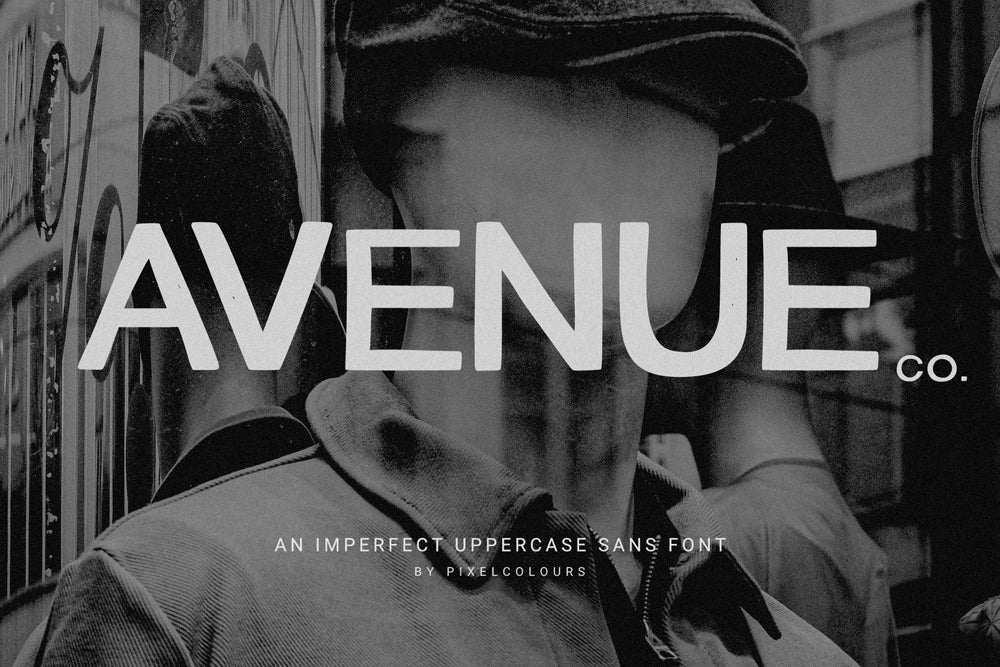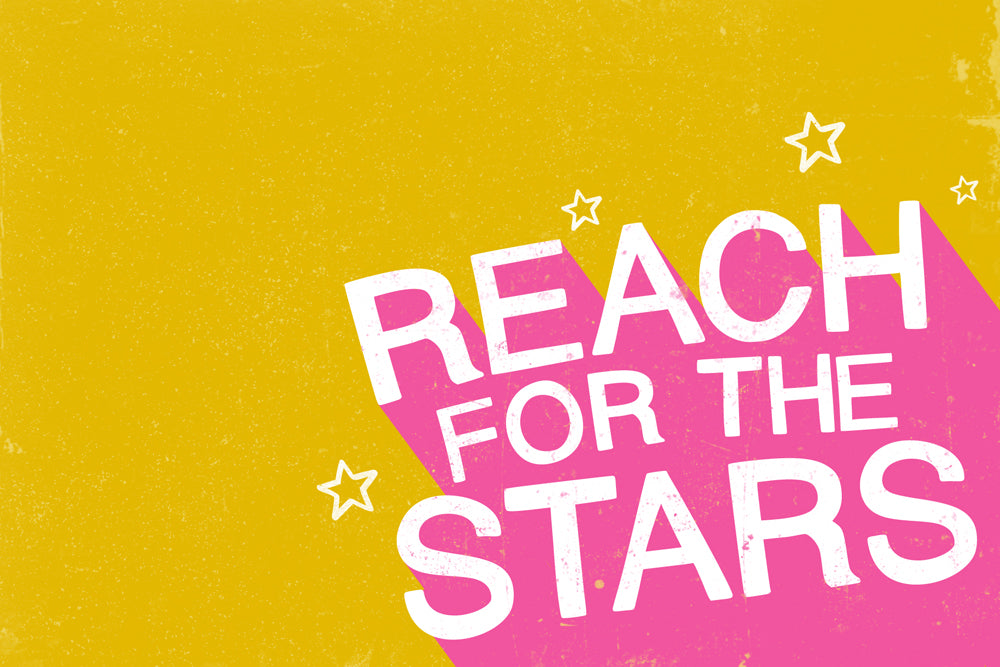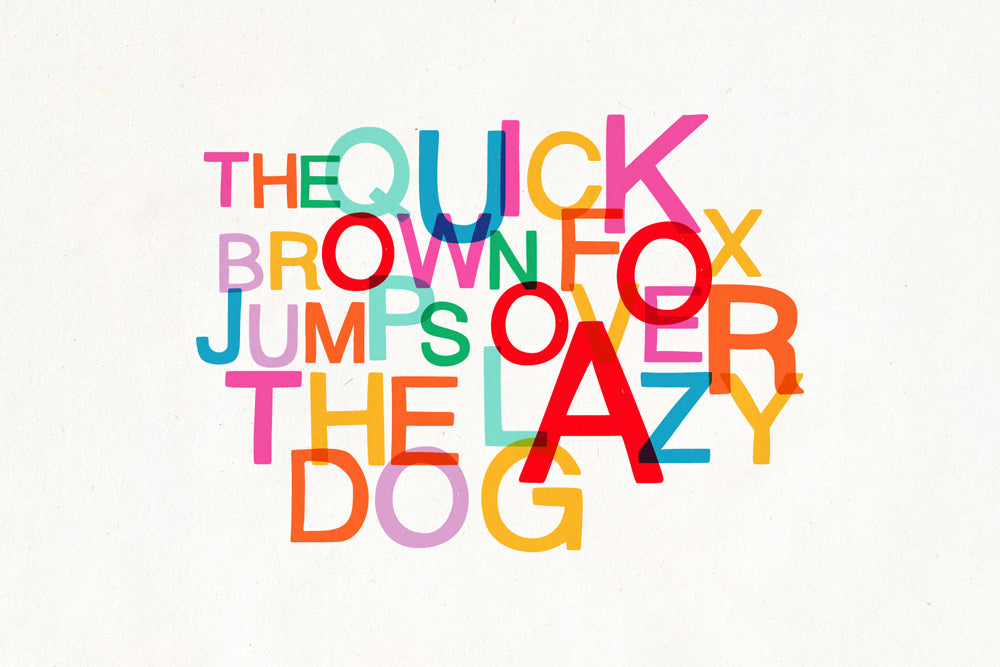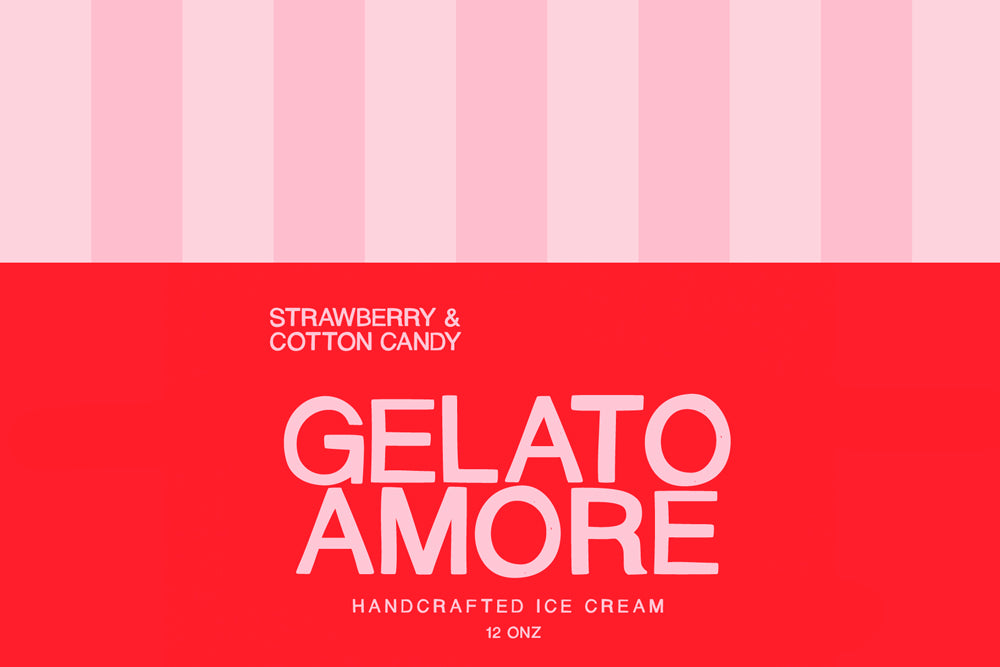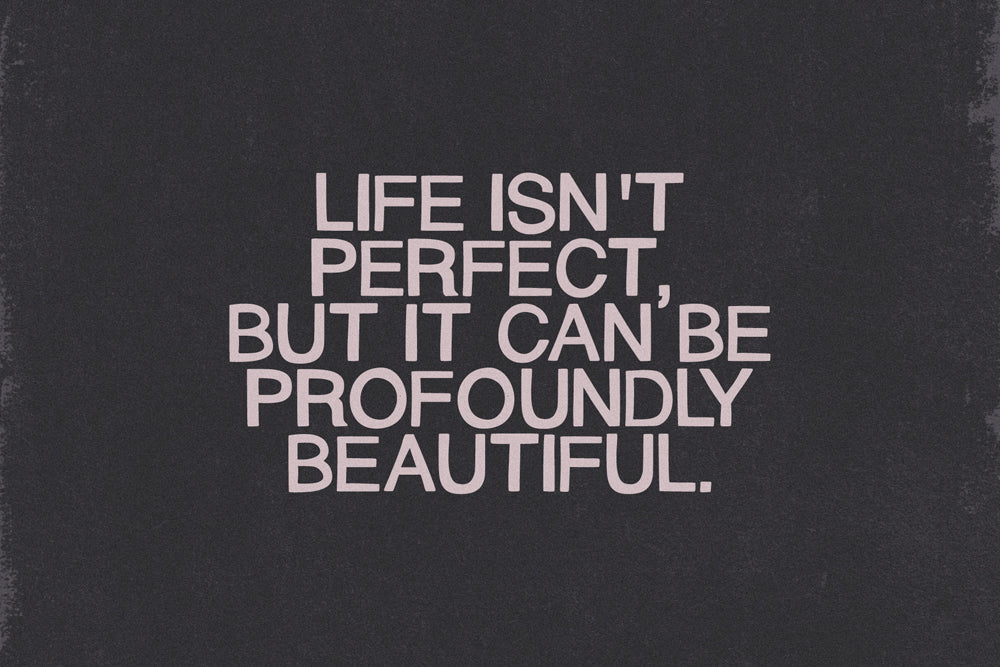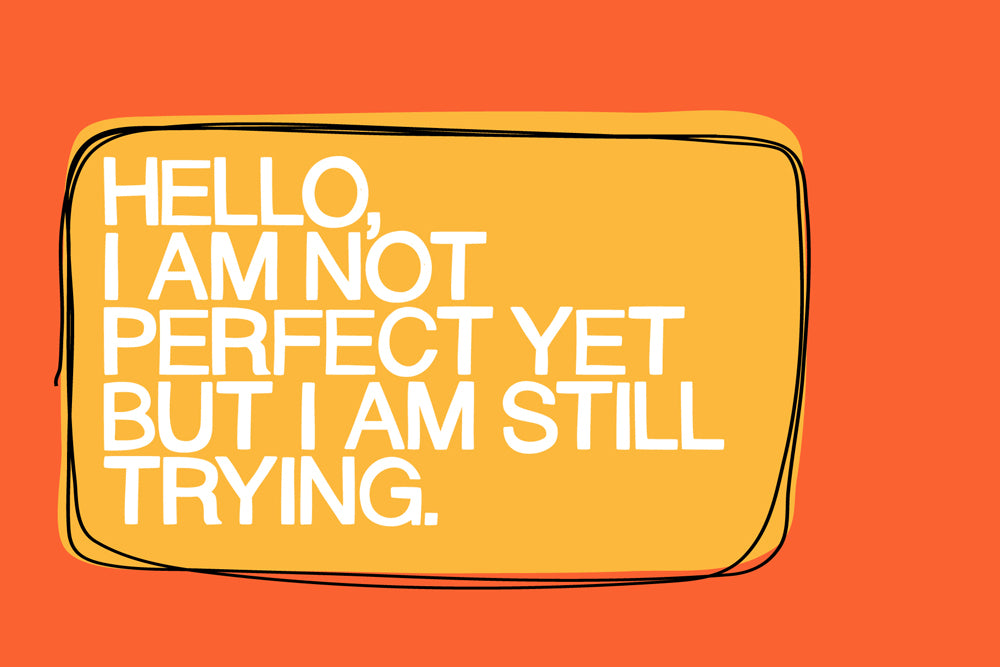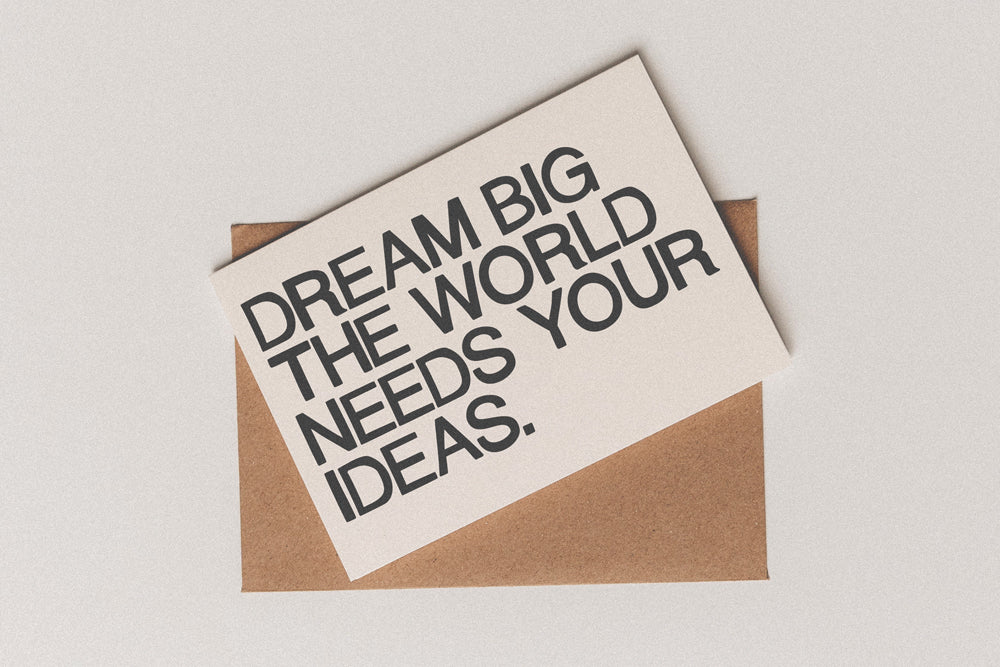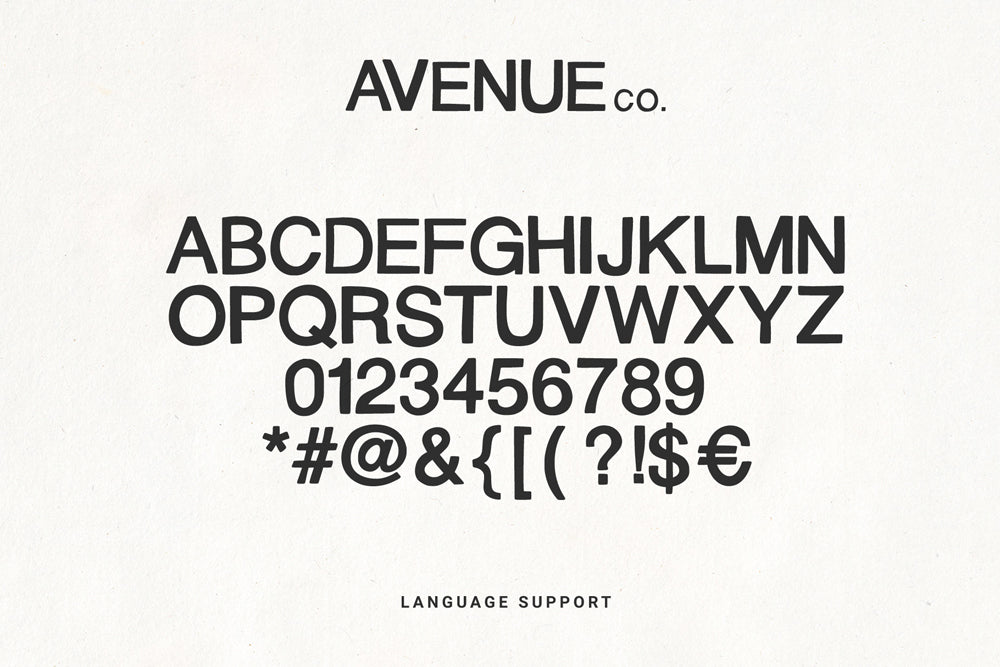
Avenue Co Hand-Drawn Sans Font
Avenue Co. is a modern uppercase hand-drawn sans font with a natural, handcrafted feel. Designed to combine the clean structure of a sans serif with the charm of handwritten style, it brings personality and authenticity to every design. Perfect for branding, logos, posters, packaging, social media, editorial layouts, quotes, book covers, invitations, websites, and creative projects.
Its organic imperfections and casual strokes create an approachable look while remaining clean, readable, and professional. Whether you're building a brand, designing marketing materials, or creating eye-catching headlines, Avenue Co. adds a distinctive handmade touch.